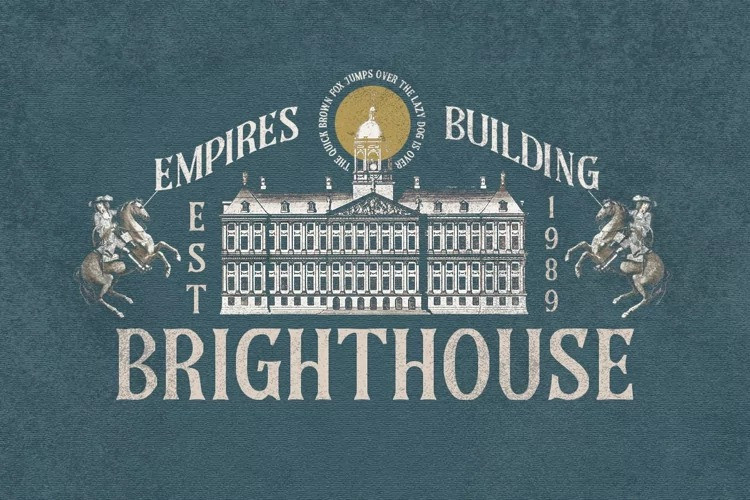
Eligated Font
Eligated Display Font
This is a display typeface created by Letterhend Studio with a retro-futuristic theme. Inspired from 60s and 70s signages, labels, and ads. This type of font perfectly made to be applied especially in logo, headline, signage and the other various formal forms such as invitations, labels, logos, magazines, books, greeting / wedding cards, packaging, fashion, make up, stationery, novels, labels or any type of advertising purpose.